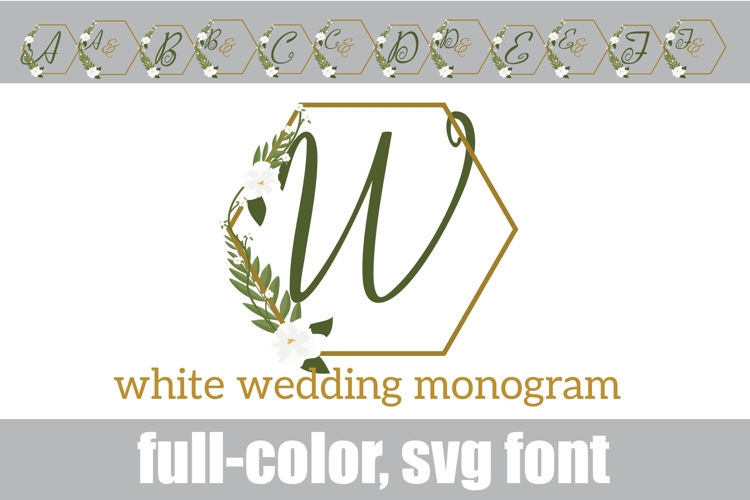
White Wedding Monogram Color Font
This full-color, monogram font sports white florals on green and gold lettering. Use the uppercase by itself for a pretty monogram or use the lowercase for an initial and ampersand. Finish off the lowercase monogram by using the letters from the alt case. There is an alt case of additional colors of each letter that you can access through your system's character map.